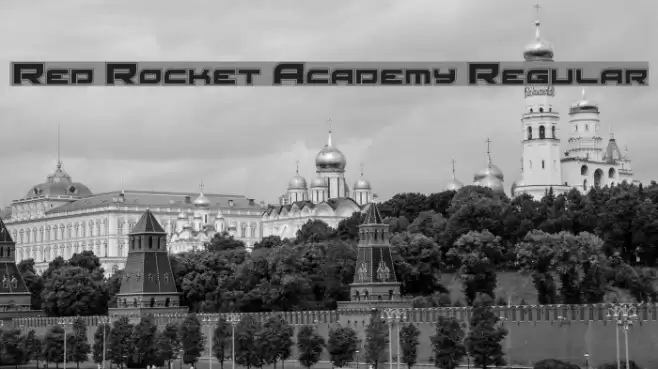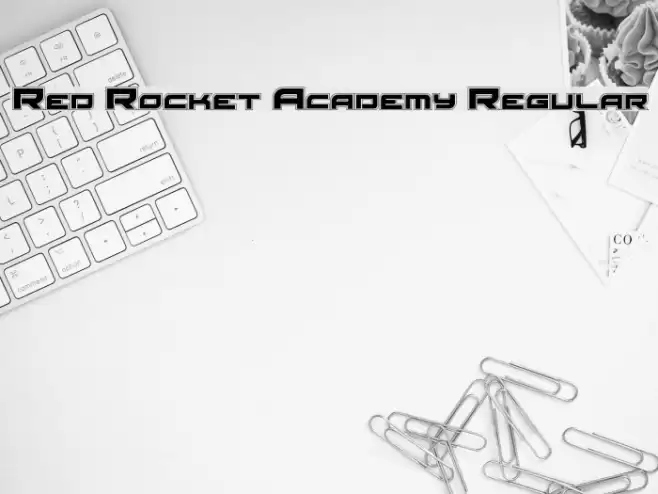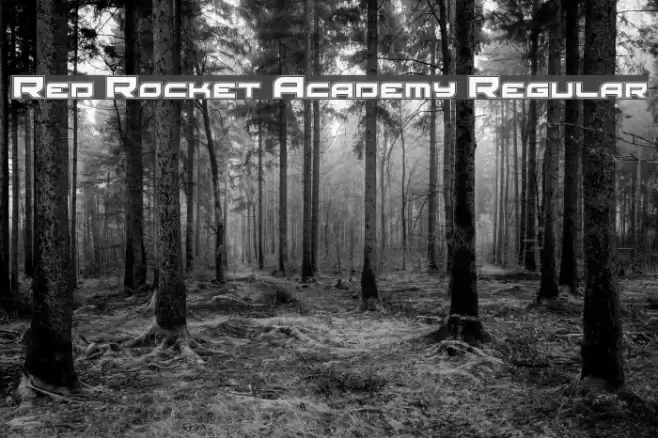
Red Rocket Academy Regular Font
Red Rocket Academy Regular Description
This font features a bold, futuristic design with a strong geometric structure. The characters are outlined, creating a striking contrast between the thick black borders and the white interior space. The angular shapes and sharp edges give it a modern and dynamic appearance, suitable for projects that require a bold statement. The uppercase letters are consistent in height, while the numerals and special characters maintain the same bold style, ensuring uniformity across all text. The font's unique style makes it ideal for attention-grabbing headlines and logos.
A bold, futuristic font with geometric outlines and sharp edges from Uncategorized fonts.
- Proposed Projects: Ideal for sci-fi themed designs, technology branding, video game titles, and futuristic posters.